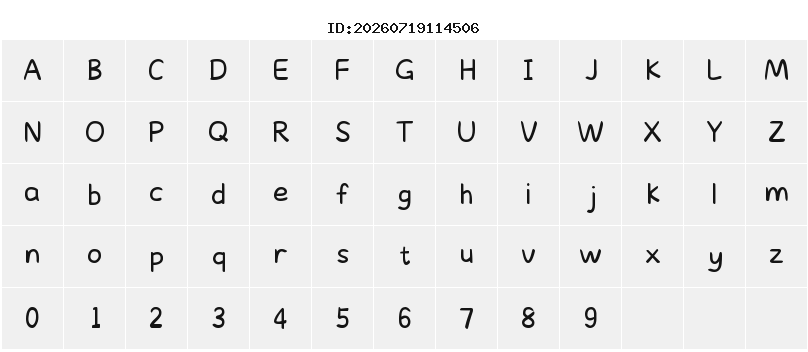
也字工厂瑞云浓楷书 Preview
• Font Name: 也字工厂瑞云浓楷书
• Font ID: 1.000;YE ;YEFONTRuiYunNongKaiShu
• Full Font Name: 也字工厂瑞云浓楷书
• PostScript Name: YEFONTRuiYunNongKaiShu
• Character Count: 7142
• Manufacturer: 也字工厂
About 也字工厂瑞云浓楷书.ttf
也字工厂瑞云浓楷书.ttf is a modern, elegant sans-serif font designed for ultimate readability and visual harmony. Perfect for branding, headlines, web design, and print materials.